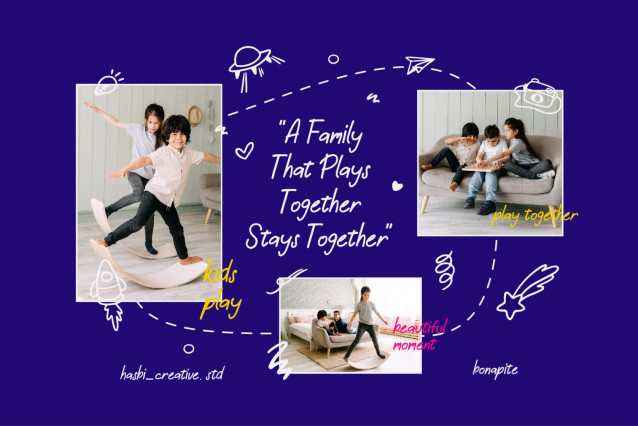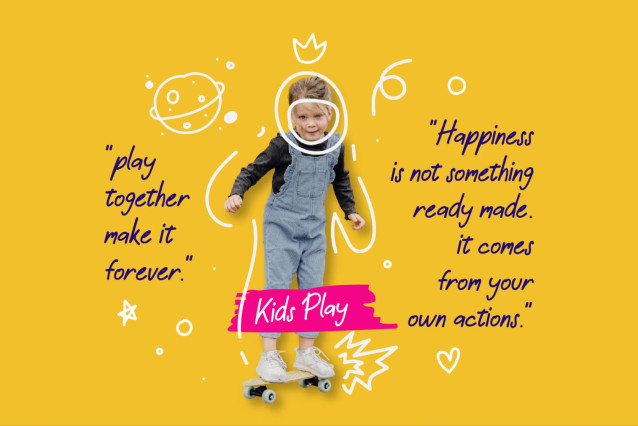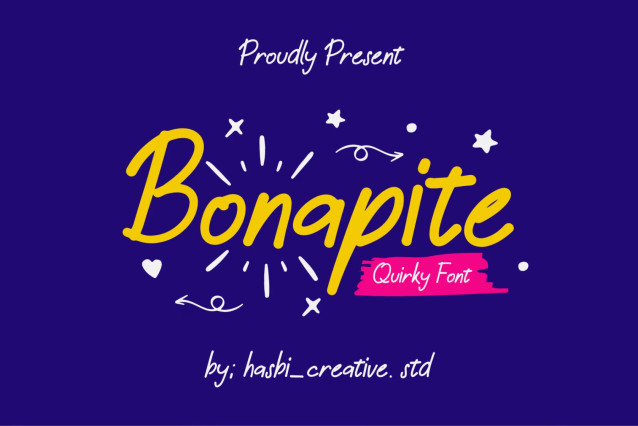
Bonapite – Playful Display Font
Introducing Bonapite, a playful display font that exudes an irresistible charm and a touch of whimsy. Its bouncy and energetic letters are ready to add a burst of personality to any design, making your words dance off the page with infectious delight.
• Unique and eye-catching
• Playful and fun
• Versatile
• Easy to use
Embrace the playful charm of Bonapite and let your words dance with joy!